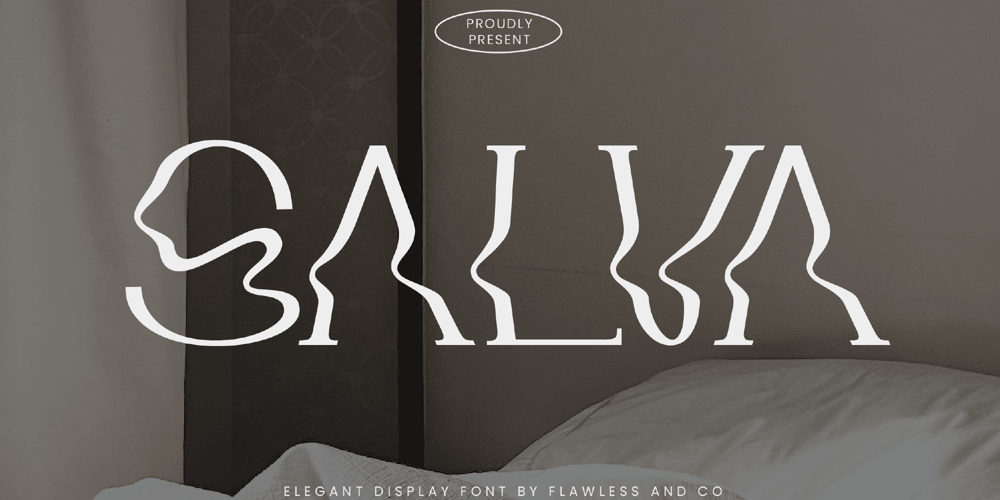
Salva Font Family was designed by Achmad Yani and published by Flawlessandco. Salva contains 1 styles and family package options. Introducing “Salva” – An Elegant Display Font. Prepare to be captivated by the distinctive allure of “Salva,” an elegant display font that weaves waves into every line of its letters, redefining elegance with its truly unique design.There’s some connected letters and some alternates that suitable for any graphic designs such as branding materials, t-shirt, print, business cards, logo, poster, t-shirt, photography, quotes .etcThis font support for some multilingual. Also contains uppercase A-Z and lowercase a-z, alternate character, numbers 0-9, and some punctuation.If you need help, just write me! Thanks so much for checking out my shop!